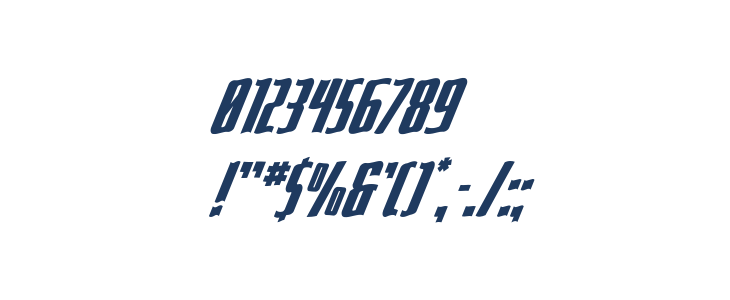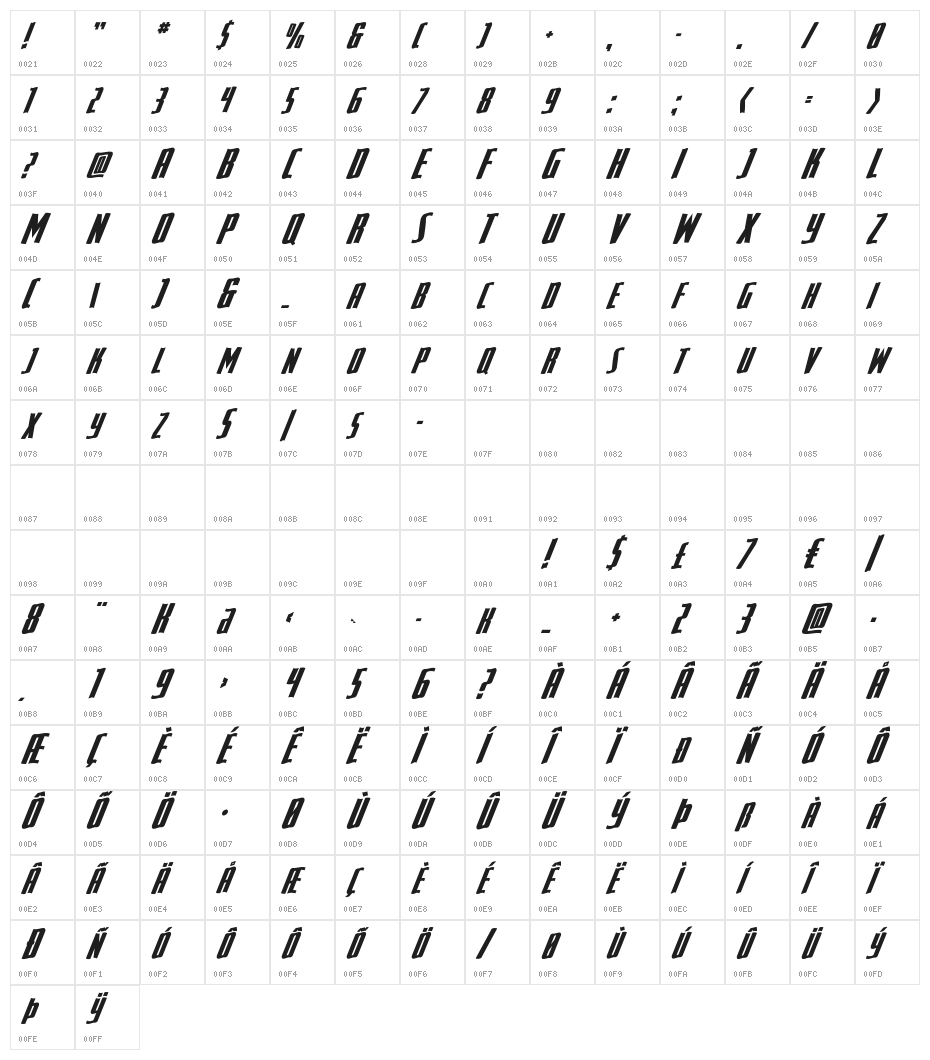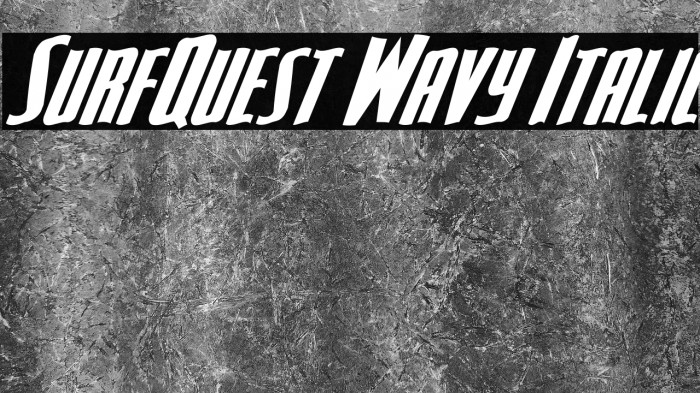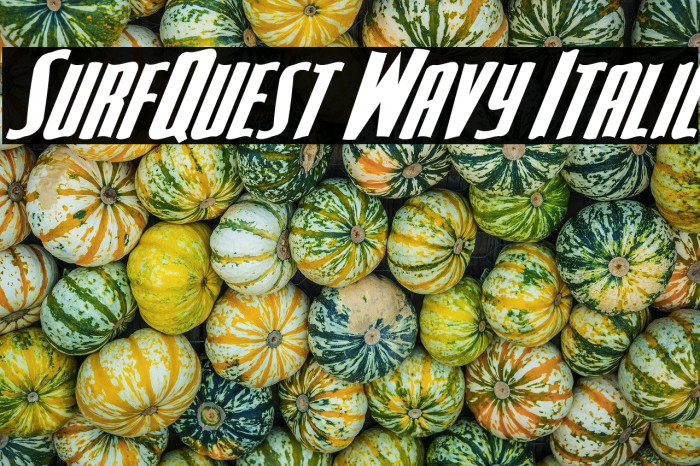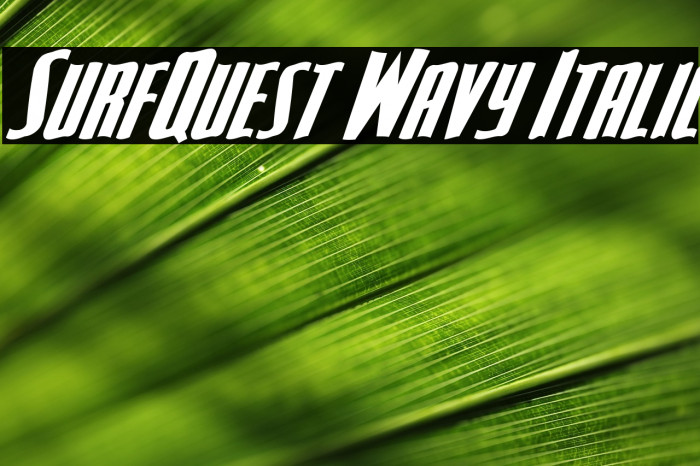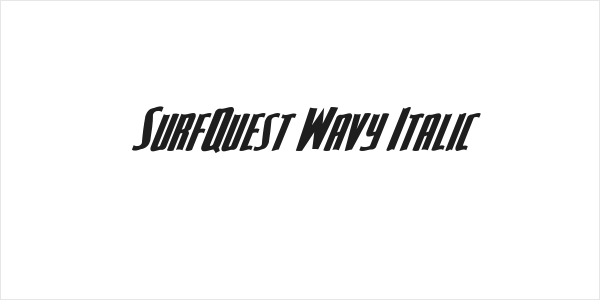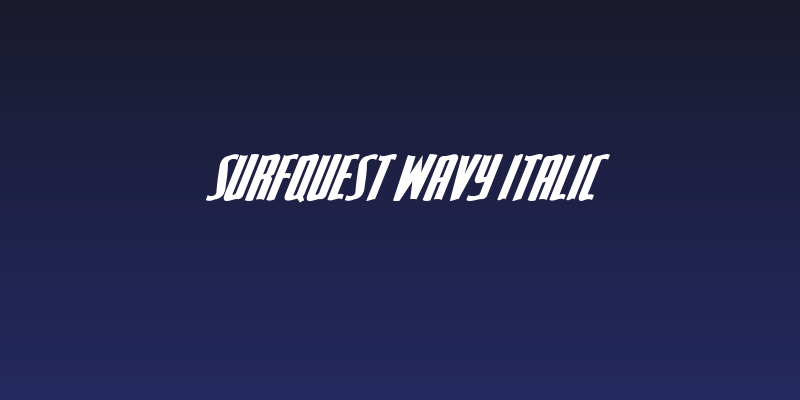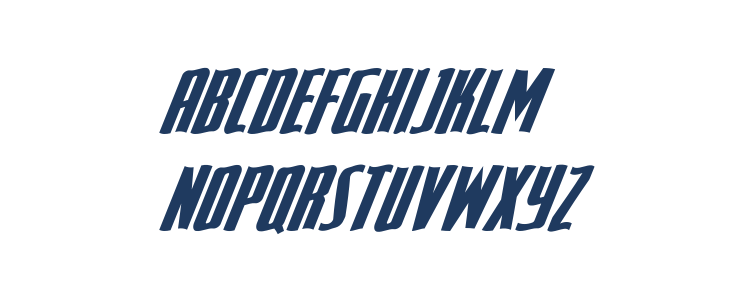
SurfQuest Wavy Italic Font
SurfQuest Wavy Italic Description
This font features a bold and dynamic design with a distinct wavy and italicized style. The characters are slanted, giving a sense of movement and energy. The strokes are thick and consistent, creating a strong visual impact. The uppercase and lowercase letters maintain a cohesive look, while the numbers and special characters are designed to match the overall aesthetic. This font is ideal for projects that require a bold and eye-catching typeface.
| Proposed Projects | Ideal for surf-themed branding, sports event posters, dynamic logos, and eye-catching headlines. |